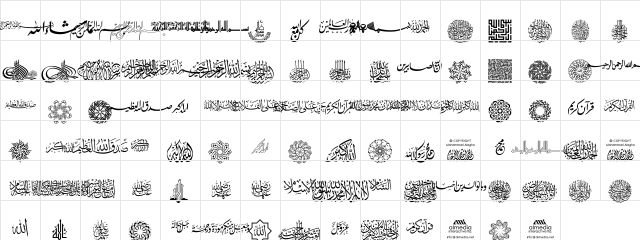
AGA Islamic Phrases Regular Free Font
AGA Islamic Phrases Regular
Design Context for AGA Islamic Phrases
AGA Islamic Phrases is a composed and adaptable typeface that performs quietly and consistently across a wide range of design contexts.